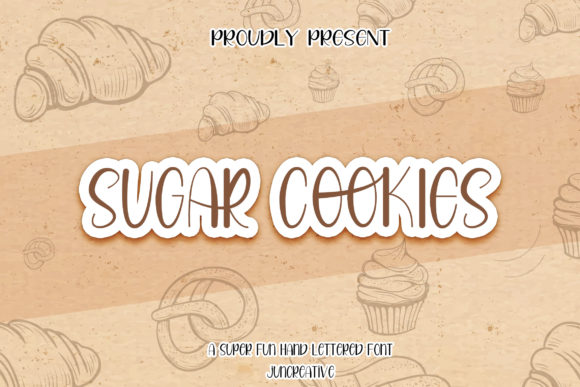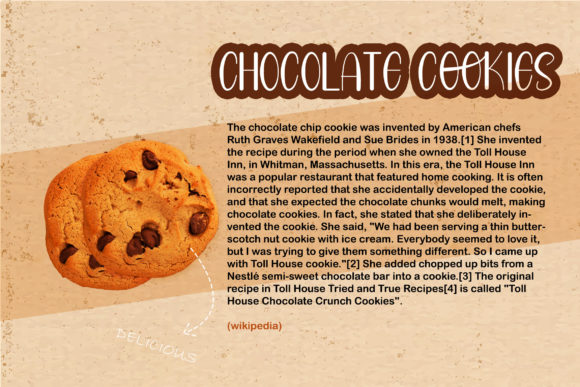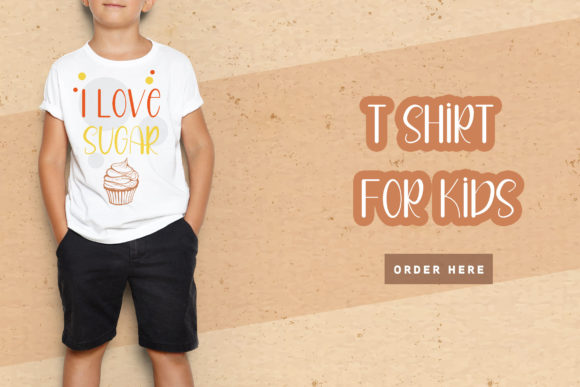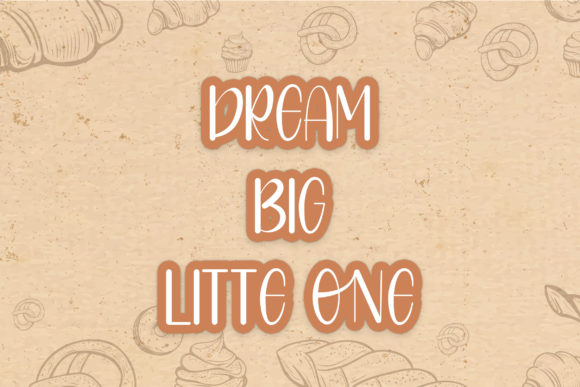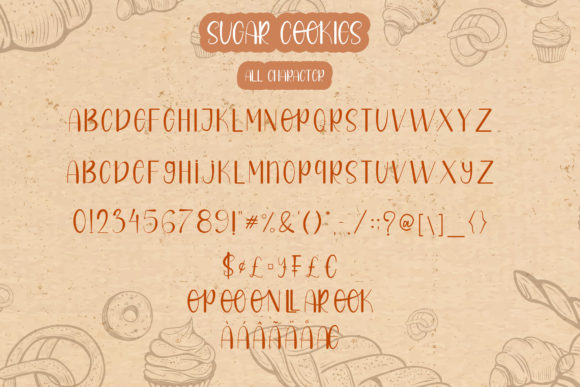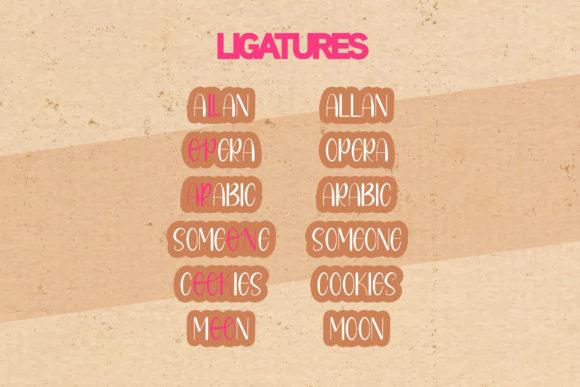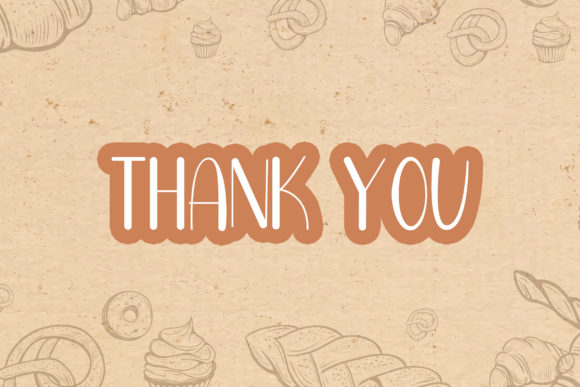
Sugar Cookies Font
About Sugar Cookies Font
Sugar Cookies is a deliciously sweet handwritten font with a fancy feel. Use it to take any arts and crafts project to the next level.